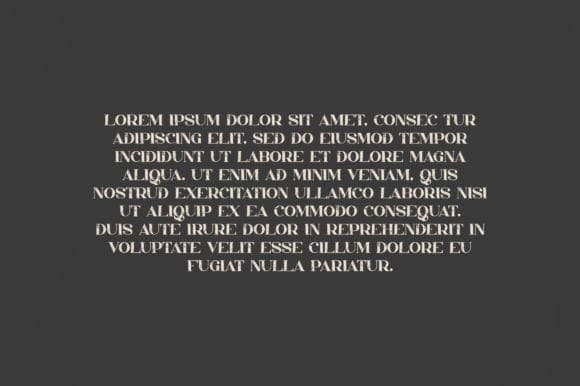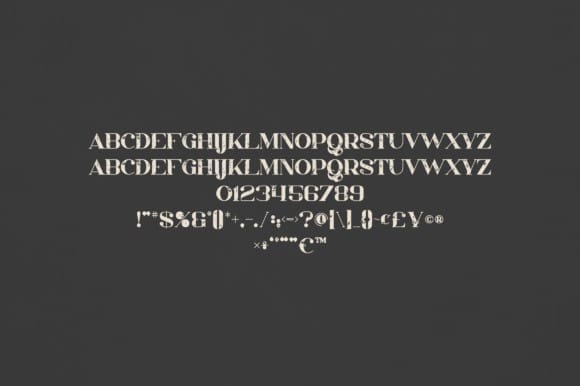
Rhys Font
Rhys Font is an elegant and versatile font that will make your typography truly unique! It will enchant every logo, branding, headline, or plain text!